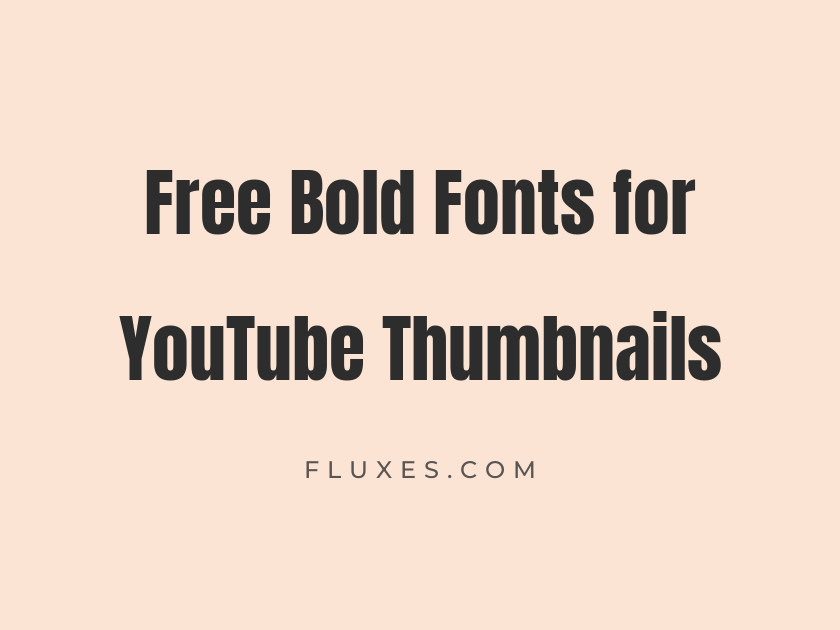
64 Best Free Bold Fonts for YouTube Thumbnails
Best Free Bold Fonts for YouTube Thumbnails
The classic YouTube thumbnail formula hasn’t changed much: a striking image, a face with an exaggerated expression, and a handful of thick, high-contrast words that read clearly even at the size of a postage stamp on someone’s phone. That last part is where font choice matters enormously. Impact may be the font every meme generator defaults to, but it’s a system font with licensing quirks and a dated feel, and there are far better, genuinely free alternatives built for exactly this kind of loud, legible, thumbnail-sized typography.
The fonts that work best here share a few traits: heavy weights, generous x-heights, tight letterspacing that survives compression, and enough personality to match a niche, whether that’s gaming, beauty, finance, comedy, or vlogging. Every option below is free to download from Google Fonts and built to hold up against a busy background at 1280×720 pixels.
1. Anton
Anton is the closest thing the free-font world has to a default Impact replacement, and it’s become a thumbnail cliché for good reason. Its ultra-condensed, ultra-bold letterforms pack maximum shout into minimal horizontal space, which is exactly what a title bar squeezed into a corner of a thumbnail needs.
2. Bebas Neue
Bebas Neue trades some of Anton’s brute force for cleaner, more architectural proportions, all caps and no lowercase to speak of. It reads as confident rather than aggressive, which makes it a favorite for tech reviews, travel vlogs, and lifestyle channels that want boldness without shouting.
3. Archivo Black
Where Anton leans condensed, Archivo Black stays wide and grounded, giving each letter room to breathe while still hitting hard. It’s an excellent pick when a title needs to feel authoritative rather than frantic, and it holds its shape well even when compressed by YouTube’s thumbnail rendering.
4. Alfa Slab One
Slab serifs rarely get this heavy, and Alfa Slab One turns that mass into a strength. The thick, blocky serifs give it a stamped, poster-like presence that suits countdown and reveal-style content especially well.
5. Oswald
Oswald’s condensed proportions were inspired by classic gothic sans faces, and at 700 weight it becomes dense enough to anchor a headline without losing its clean, newsy legibility. It pairs naturally with a lighter subtitle line beneath the main hook.
6. Poppins
Poppins at its heaviest weight keeps the geometric roundness that made it a UI favorite, but adds enough bulk to compete visually with a busy photo背景. It feels friendly rather than aggressive, which suits tutorial, productivity, and how-to content better than more combative display faces.
7. Montserrat
Montserrat Black is a workhorse for creators who want something bold but not novelty-shaped. Its geometric letterforms stay crisp at small sizes, and because the family spans so many weights, it’s easy to pair a Black headline with a Regular or Medium subhead in the same thumbnail.
8. Fjalla One
Fjalla One is narrower and quieter than most fonts on this list, which makes it useful when a thumbnail already has a lot of visual noise and needs restrained, legible text rather than another loud element. It has a slightly humanist warmth that keeps dense titles from feeling cold.
9. Bungee
Bungee borrows its DNA from street signage and stencil lettering, and it shows: thick, upright, unapologetically graphic. It’s a natural fit for gaming, sports, and comedy channels that want thumbnail text to feel like part of the scenery rather than an overlay.
10. Bungee Inline
The inline treatment adds a second color channel inside each letter, which can make text pop against a single-tone background without needing a drop shadow or outline effect. Use it sparingly since the extra detail can blur at very small preview sizes.
11. Bungee Shade
This version bakes a hard-edged 3D shadow directly into the letterforms, giving flat thumbnail text an illusion of depth without any extra layer effects in your editor. It’s best reserved for short, punchy words rather than full sentences.
12. Bungee Outline
An outlined-only structure makes this version of Bungee useful for layering directly over a bright photo, since the hollow letterforms let the background color show through. It works particularly well stacked on top of a solid Bungee headline for a layered, poster-style effect.
13. Bungee Spice
Built-in gradient coloring sets this one apart from the rest of the family, running warm orange into hot pink across each letter automatically. It’s a fun, low-effort way to add visual energy to a thumbnail without touching a gradient tool yourself.
Keep word counts low. Three to five words in a heavy display font almost always outperforms a full sentence, no matter how good the font looks.
Whether the goal is gaming-channel chaos, calm and credible commentary, or a warm lifestyle vlog, there’s a free Google Fonts option above built for the job. Download a few, test them against your actual thumbnails, and let the one that survives the small-size squeeze become your channel’s signature look.